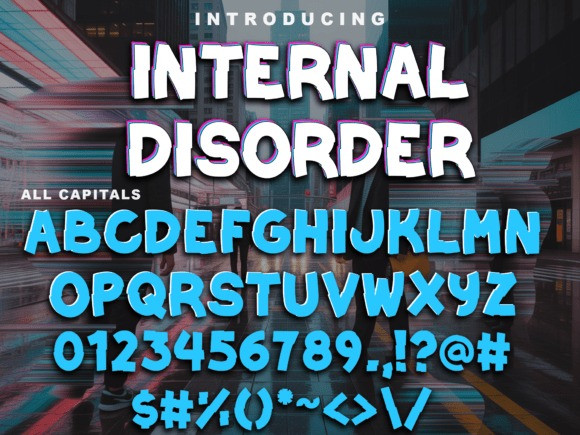
Internal Disorder Font
Internal Disorder Font is a strong, impactful stencil font built for high-visibility design. With a rugged texture and an distorted effect, it’s perfect for military themes, tactical branding, survival gear, or bold statement posters. The asymmetrical effect adds authenticity and grit, making it a standout choice for commanding attention.